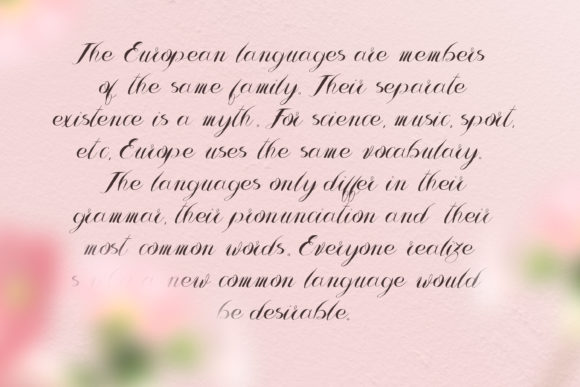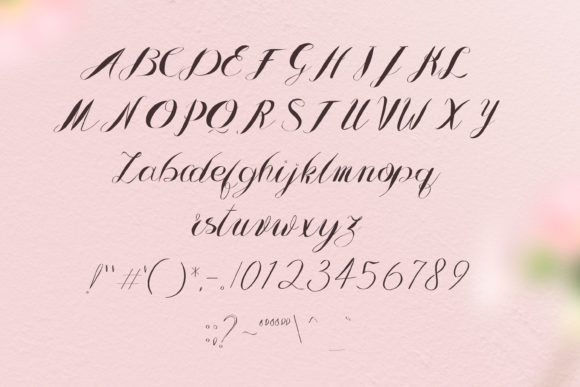
Introduction to Leranda Font
As you sit at your desk, surrounded by scraps of paper and half-finished designs, you stumble upon the perfect font to bring your creative project to life. The Leranda Font is an elegant and flowing handwritten font that exudes romance and sophistication, making it the perfect addition to any design. Whether you’re working on a wedding invitation, a greeting card, or a special anniversary, this font is sure to impress.
Designers, rejoice! The Leranda Font is a valuable resource for any creative endeavor. Its high-quality design and versatility make it an excellent choice for both formal and non-formal contexts. Plus, with its transparent background, you can easily customize it to fit your design needs. And the best part? It’s available for free download, making it an accessible design resource for designers of all levels.
- Features a transparent background for seamless integration with designs
- Designed with a unique aesthetic, perfect for adding a touch of elegance to any project
- Perfect for use in graphic design, digital art, and other creative endeavors
- Includes a comprehensive character set, including uppercase and lowercase letters, numbers, and punctuation
I recently stumbled upon the Leranda Font and was excited to give it a try for my current creative project. Overall, I was pleased with the design resource, but as with any font, there are both pros and cons.
- High-quality design: The Leranda Font has a unique and modern aesthetic that makes it perfect for a variety of design projects.
- Limited font styles: The Leranda Font only comes in a few font styles, which may limit its use in certain design projects.
Overall, I think the Leranda Font is a great design resource for designers who need a high-quality, modern font for their projects. While it may have some limitations, its unique design and free download make it a great option to consider.
The Leranda Font is suitable for various design projects, including brochures, business cards, social media graphics, and presentations. Its high-quality design and transparent background make it an excellent choice for creative projects that require a professional look.